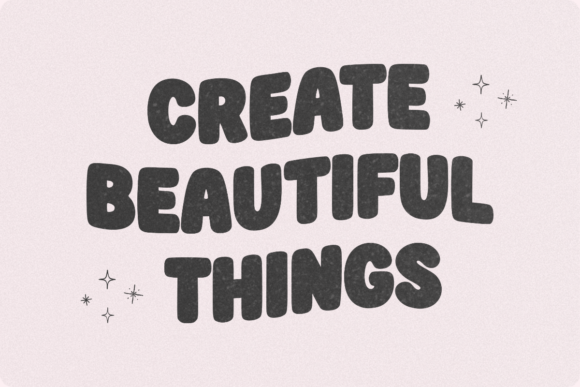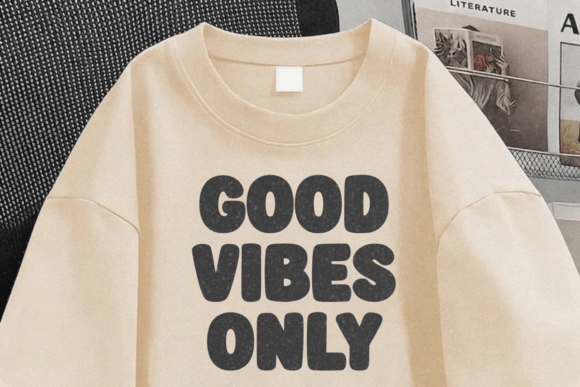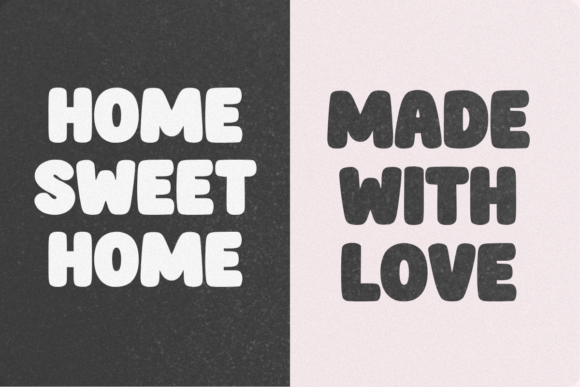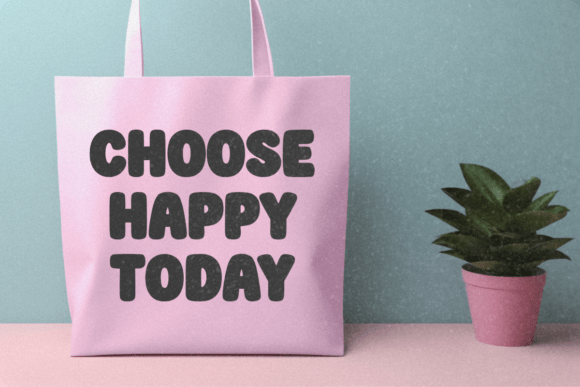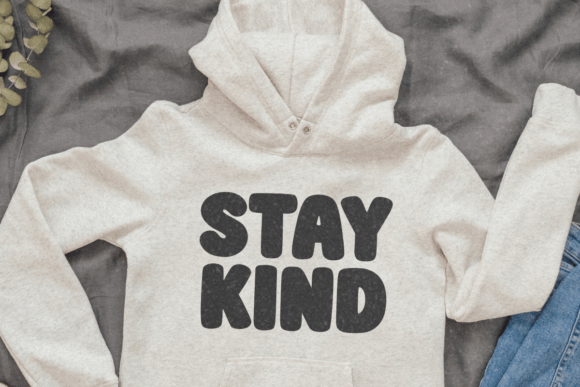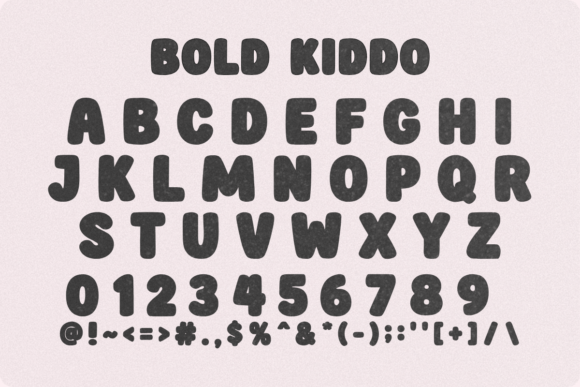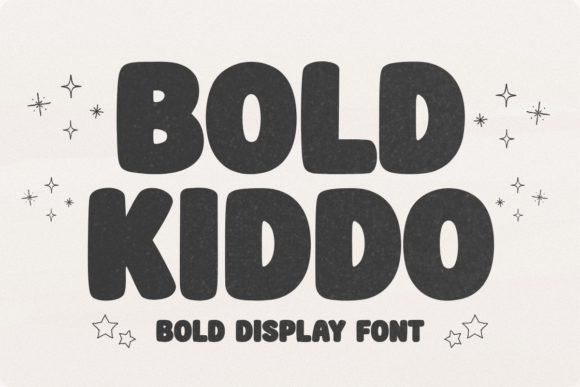
Bring Joy and Creativity to Your Crafts with Bold Kiddo Font
Are you looking for a font that can add a touch of joy and creativity to your crafting projects? Look no further than Bold Kiddo, a chunky and playful bold display font that’s perfect for eye-catching designs. With its soft, rounded edges and friendly vibe, this font is sure to bring a smile to your face and inspire your creativity.
What Makes Bold Kiddo Font So Special?
Bold Kiddo font is designed to be highly versatile and works beautifully for a wide range of crafting projects, including Cricut crafts, sublimation designs, personalized kids’ merchandise, nursery decor, birthday party invitations, school projects, and custom t-shirts. Whether you’re cutting vinyl, printing stickers, or creating fun branding, Bold Kiddo adds a cheerful, handmade charm to every creation.
Perfect for Cricut Crafts and DIY Projects
If you’re a Cricut enthusiast, you’ll love Bold Kiddo font. This font is fully compatible with major cutting machines and design software, making it easy to incorporate into your projects. Use it to create custom vinyl decals, iron-on designs, or paper crafts that are sure to impress. Bold Kiddo font is also perfect for sublimation designs, stickers, and other DIY projects that require a playful and eye-catching font.
Why Choose Bold Kiddo Font?
• Unique and Playful Design: Bold Kiddo font features soft, rounded edges and a friendly vibe that’s sure to bring a touch of joy to your crafts.
• Highly Versatile: Use Bold Kiddo font for a wide range of crafting projects, from Cricut crafts to sublimation designs and custom t-shirts.
• Fully Compatible: This font is fully compatible with major cutting machines and design software, making it easy to incorporate into your projects.
Inspiration for Your Next Project
Need some inspiration for your next project? Here are a few ideas to get you started:
• Create custom birthday party invitations that are sure to impress.
• Design personalized kids’ merchandise, such as t-shirts, tote bags, and stickers.
• Make nursery decor, such as wall art and decals, that are both fun and educational.
• Develop custom t-shirts and hoodies for kids and adults alike.
• Create fun and educational school projects, such as posters and presentations.
Bring a touch of joy and creativity to your crafting projects with Bold Kiddo font. This playful and chunky font is perfect for eye-catching designs and works beautifully for a wide range of crafting projects. With its highly versatile design and compatibility with major cutting machines and design software, Bold Kiddo font is sure to become a favorite in your crafting arsenal. Download Bold Kiddo font today and start creating!